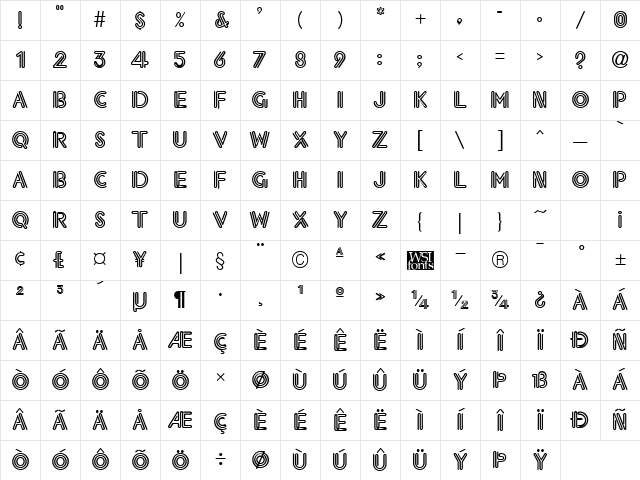
NeonThick Regular
Design Context for NeonThick
NeonThick has a distinctly futuristic character, with geometric precision and clean angles that feel at home in technology, gaming, and sci-fi contexts.
Pro Tip: Try NeonThick with generous letter-spacing in UI labels and navigation - the geometric forms benefit from room to breathe.